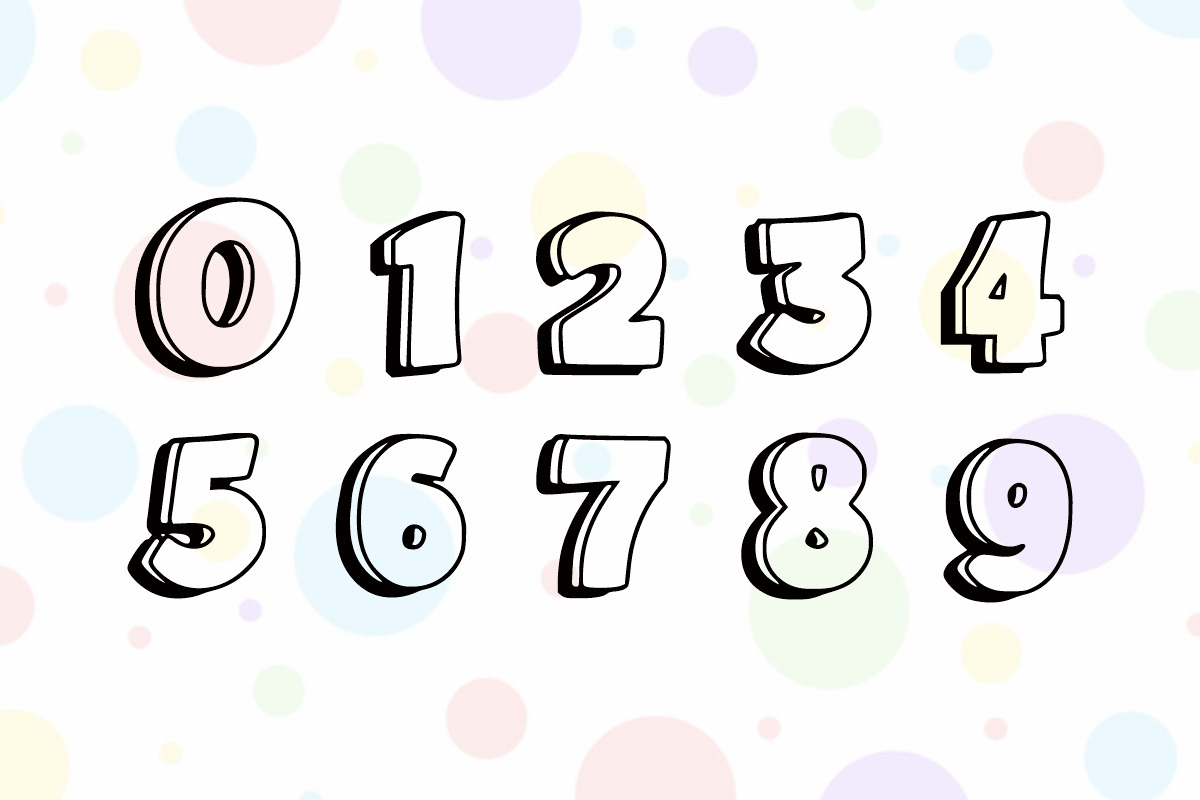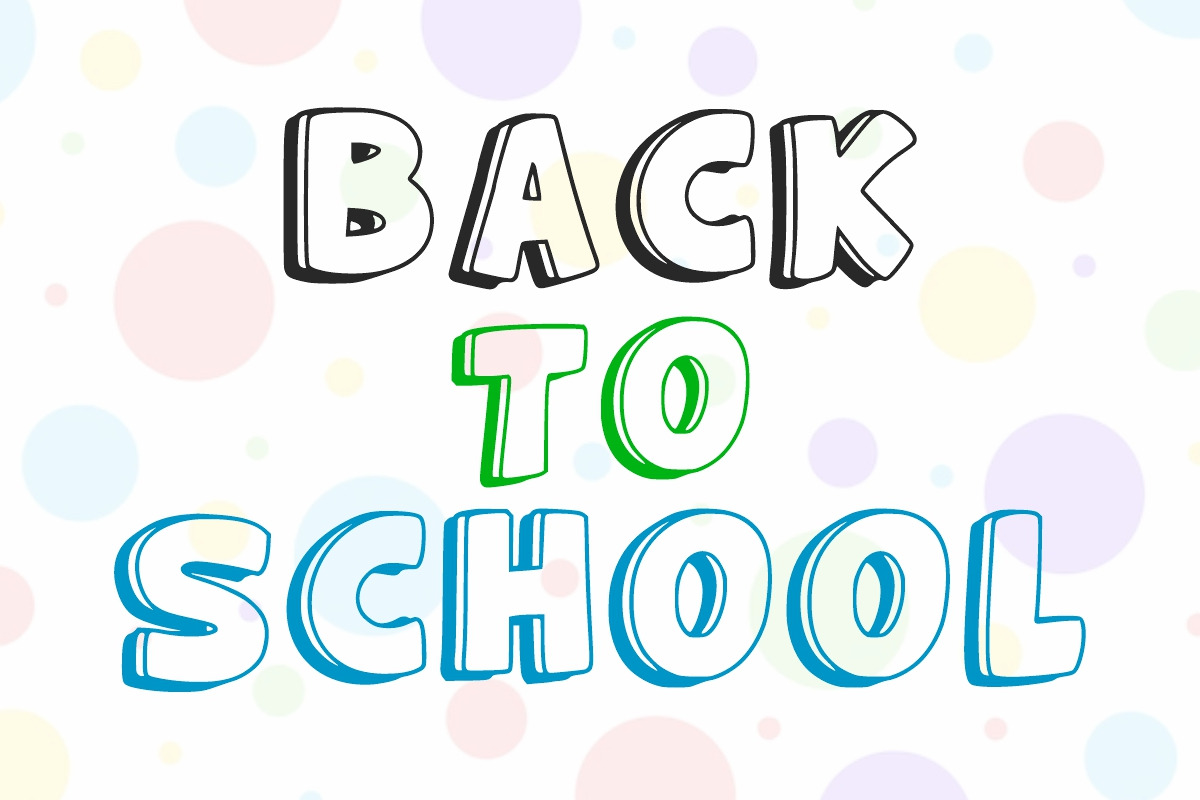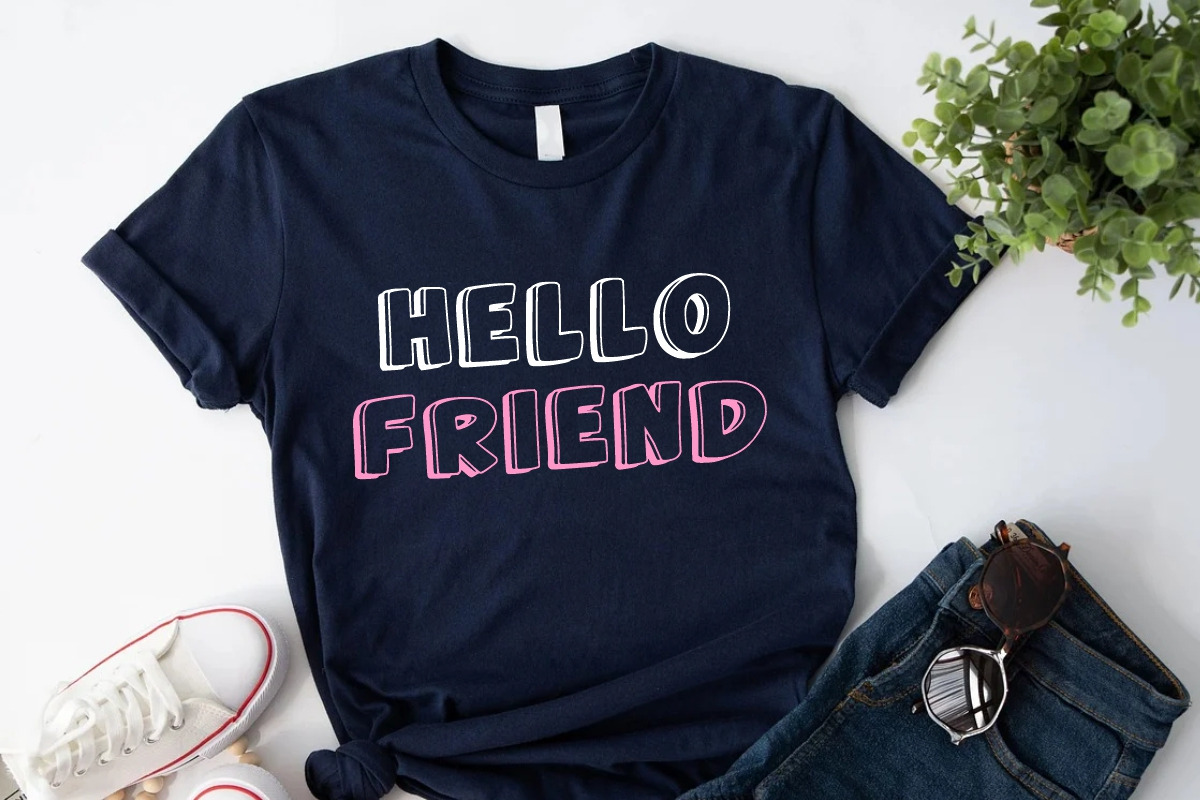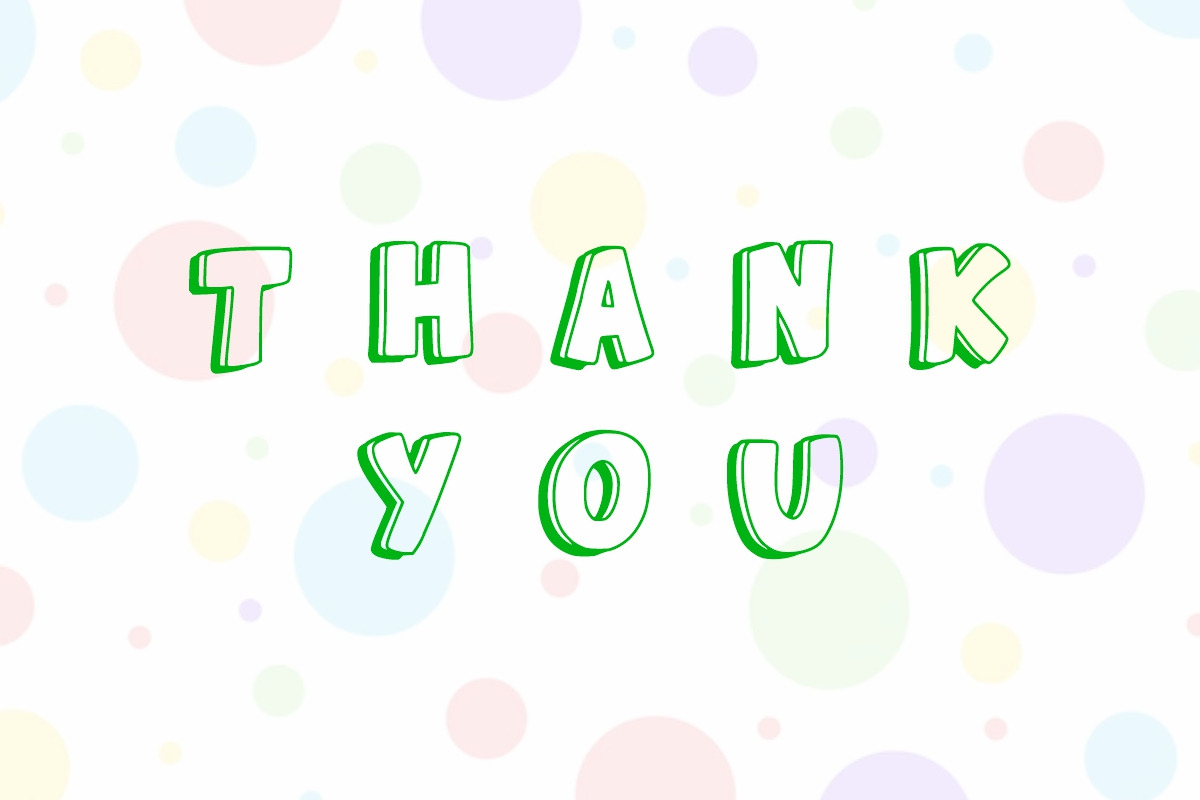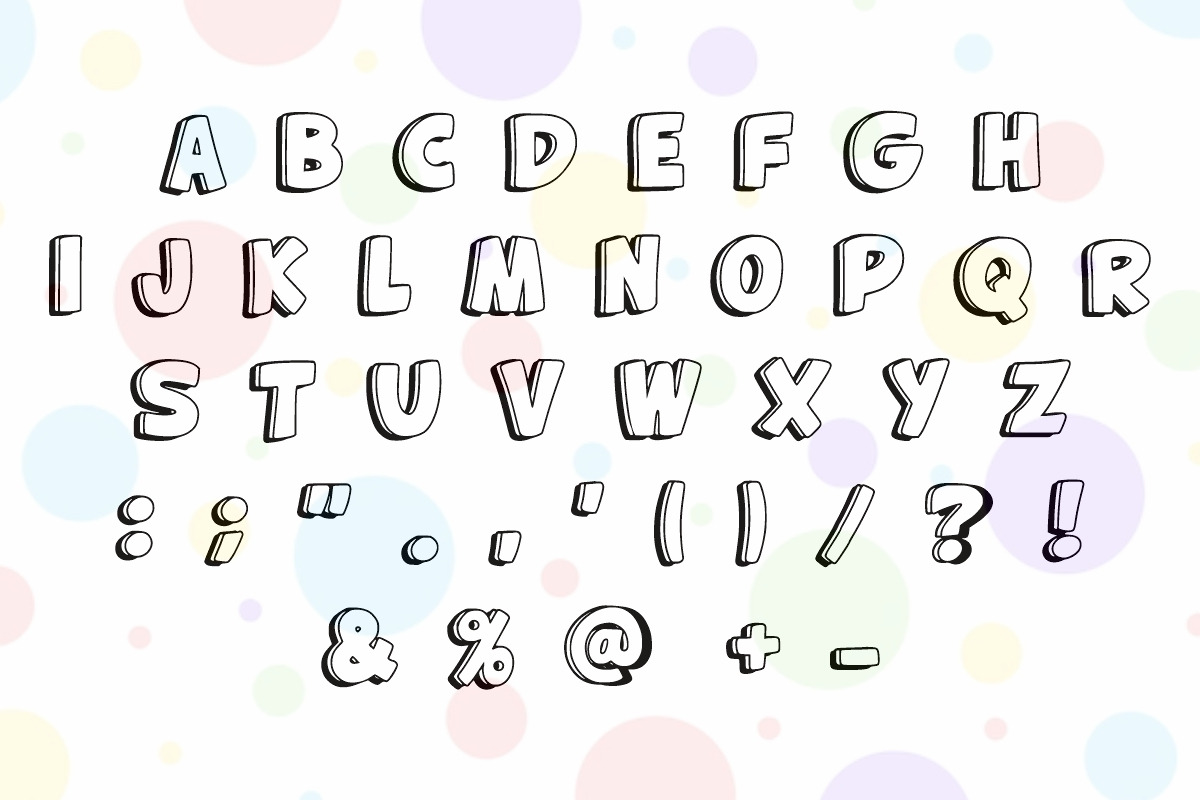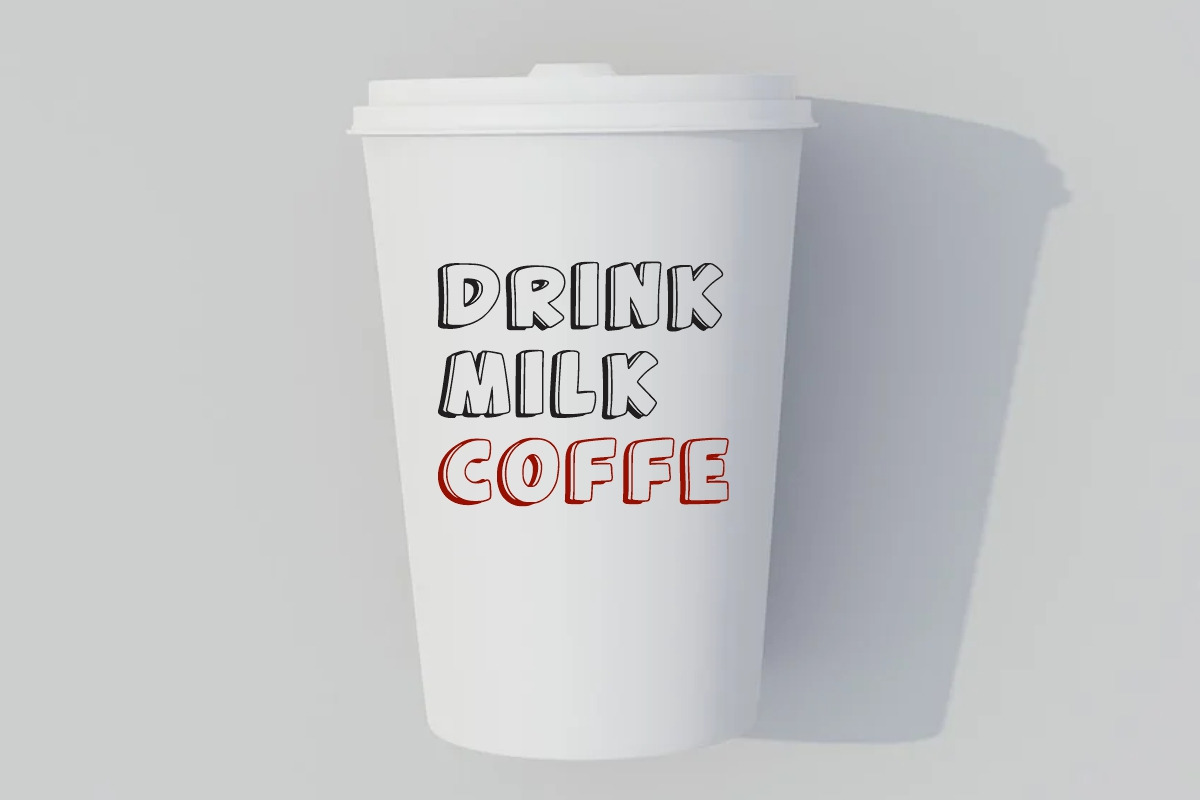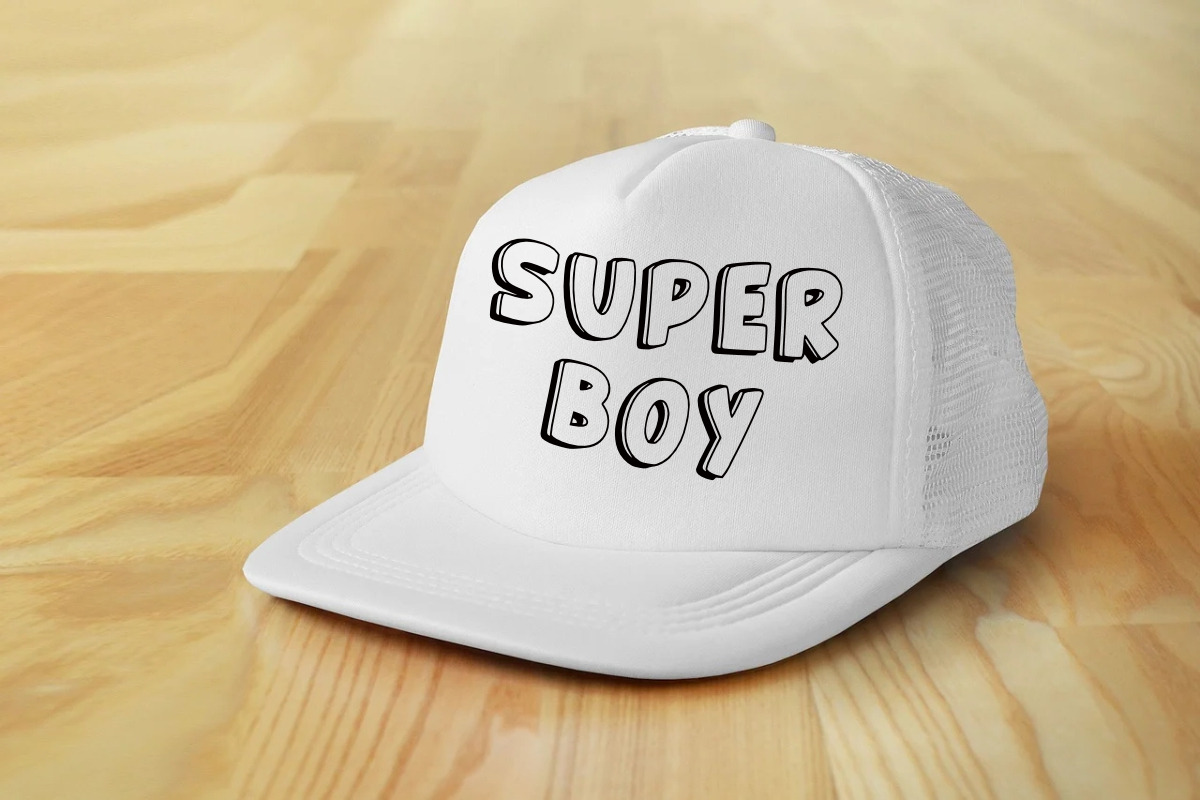
Candy Color font
Candy Color is a cute line font, display font. Add this bold font to your design and watch how it brings it to life. Get inspired by her unique and beautiful style and add it to your favorite designs! this font can use a logo, poster, cover book and more design.